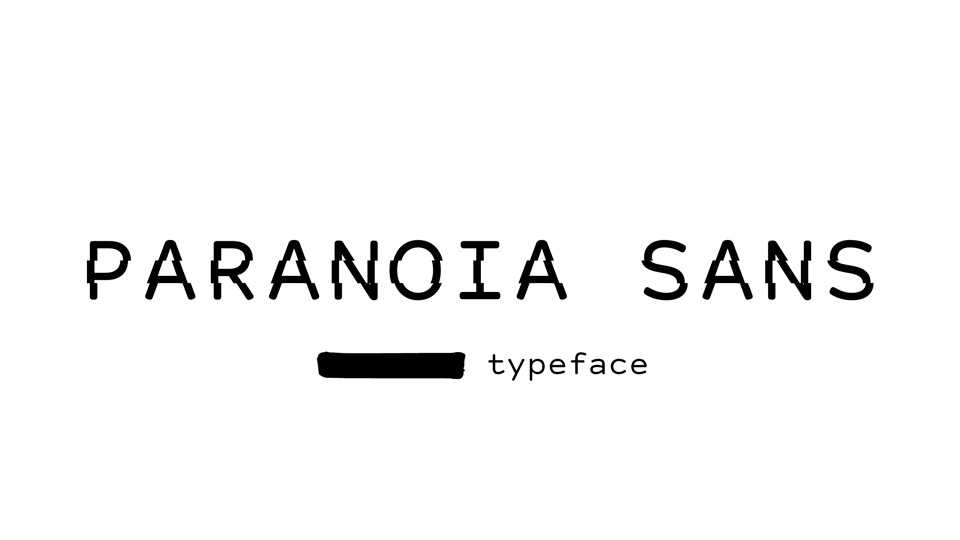
Paranoya Sans Font › Fontesk
Download Paranoia Sans font, a self-censoring, conspiratorial typeface that will automatically redact terms that are popular in conspiracy myths.
Designer: Florian Egermann